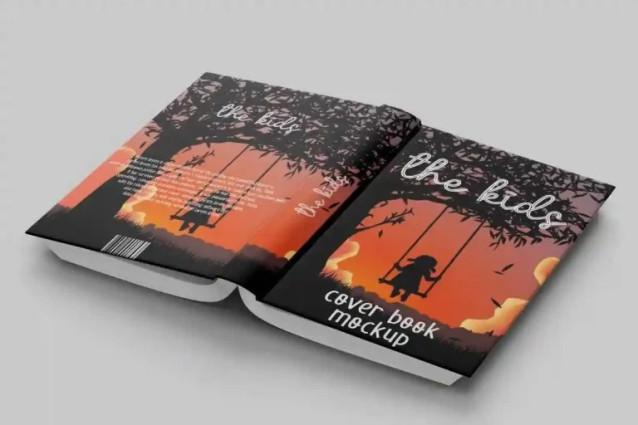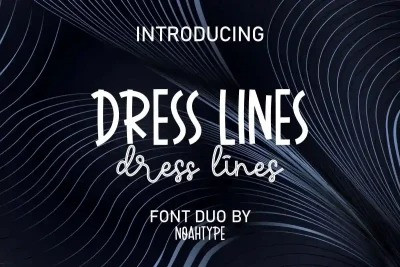
Dress Lines Script Font
Dress Lines Script Font is a perfect blend of two different types of fonts designed by NoahType. This font has a funny sans display and a script with a special feature of stripes which makes it modern, unique and easy to read. It will be amazing for any project: billboard, brand logo, brochure, business card, headline, invitation, mockup design, product packaging, signage, and more.
Dress Lines Font includes full set of Uppercase and Lowercase Basic Characters, Numerals and Punctuation. Also it contains ligatures to make it flawless characters that add more aesthetic fonts to enhance your extraordinary projects. It will be perfect for any industry such as café, catering, food, movie, tourism, publishing, writer, and more.
Looking for a font duo that speaks style, sophistication, and versatility? Introducing Dress Lines Font Duos – a modern, classy combination of script and serif fonts designed to make your creative projects shine.
Whether you’re working on branding, logos, wedding invitations, fashion editorials, packaging, or social media graphics, Dress Lines Font Duos delivers a refined, high-end look that captures attention. The elegant script font flows with graceful curves, while the bold serif font brings a timeless touch, making it the ideal pairing for both digital and print design needs.
It includes full uppercase and lowercase letters, numbers, punctuation, and multilingual support – everything you need in one stylish package.